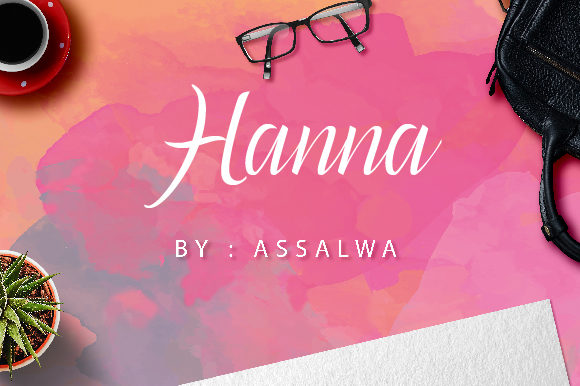
Adorn your digital creations with the captivating charm of Hanna, an enthralling calligraphy script font that exudes elegance and sophistication. Flourished with modern aesthetics and meticulously crafted with an artistic flair, Hanna elevates the visual appeal of your designs, transforming them into captivating masterpieces.
Unleash your creativity and let Hanna's graceful curves and delicate strokes weave a spellbinding narrative in your visual expressions. From enchanting headings that command attention to eye-catching logos that leave a lasting impression, Hanna effortlessly elevates every element of your design, adding a touch of timeless beauty and finesse.
Step into the world of Hanna and discover a font that resonates with your creative vision. Whether it's a heartfelt wedding invitation, a professional letterhead, or an impactful poster, Hanna seamlessly complements your message, conveying it with grace and elegance. Its versatility knows no bounds, adapting effortlessly to a myriad of design projects, each infused with a unique charm.
With Hanna as your creative companion, you'll find yourself immersed in a world of endless possibilities. Its intricate details and flowing lines add a touch of sophistication to social media posts, transforming them into captivating visual stories. Whether you're an aspiring influencer, a savvy marketer, or simply someone with a passion for visual aesthetics, Hanna amplifies your message, making it resonate with your audience.
Embrace the beauty of Hanna and elevate your designs to new heights. Experience the joy of creating with a font that sparks inspiration and ignites your imagination. Join the countless artists, designers, and creatives who have fallen in love with Hanna's captivating allure. Let your designs bloom with elegance and grace, leaving an indelible mark on the hearts of your audience.